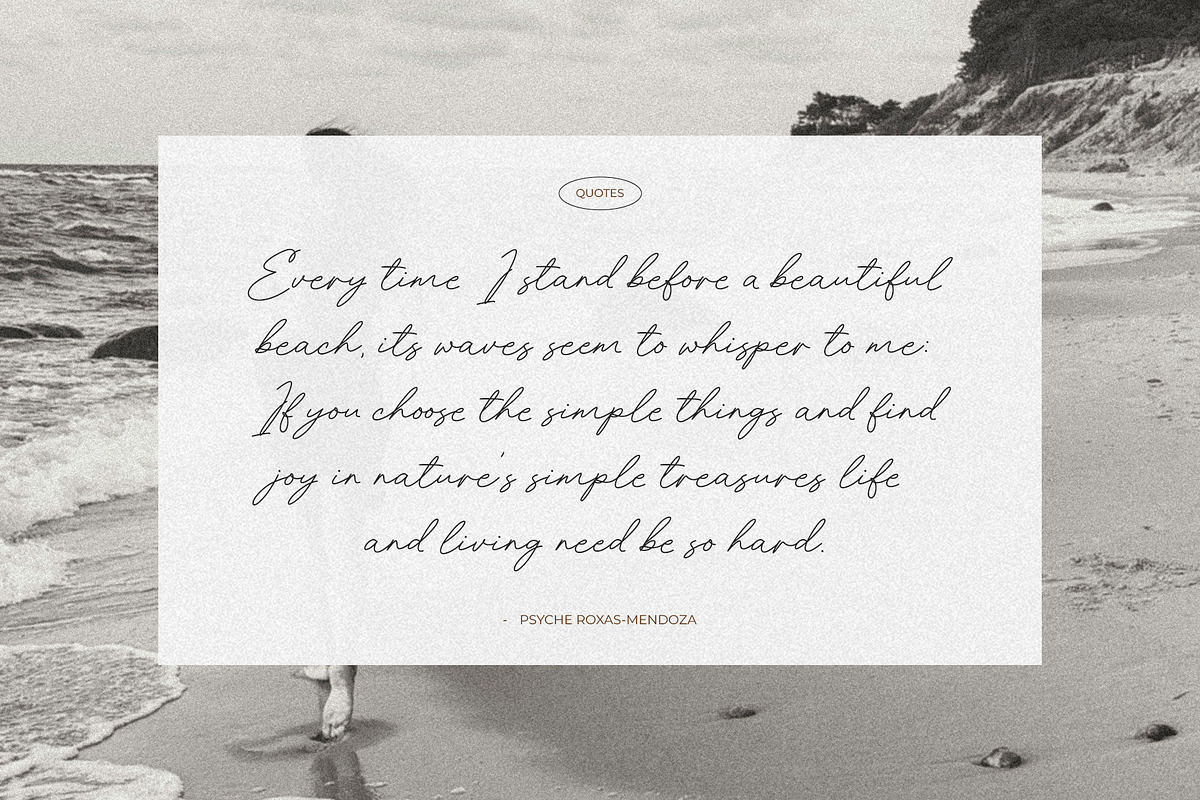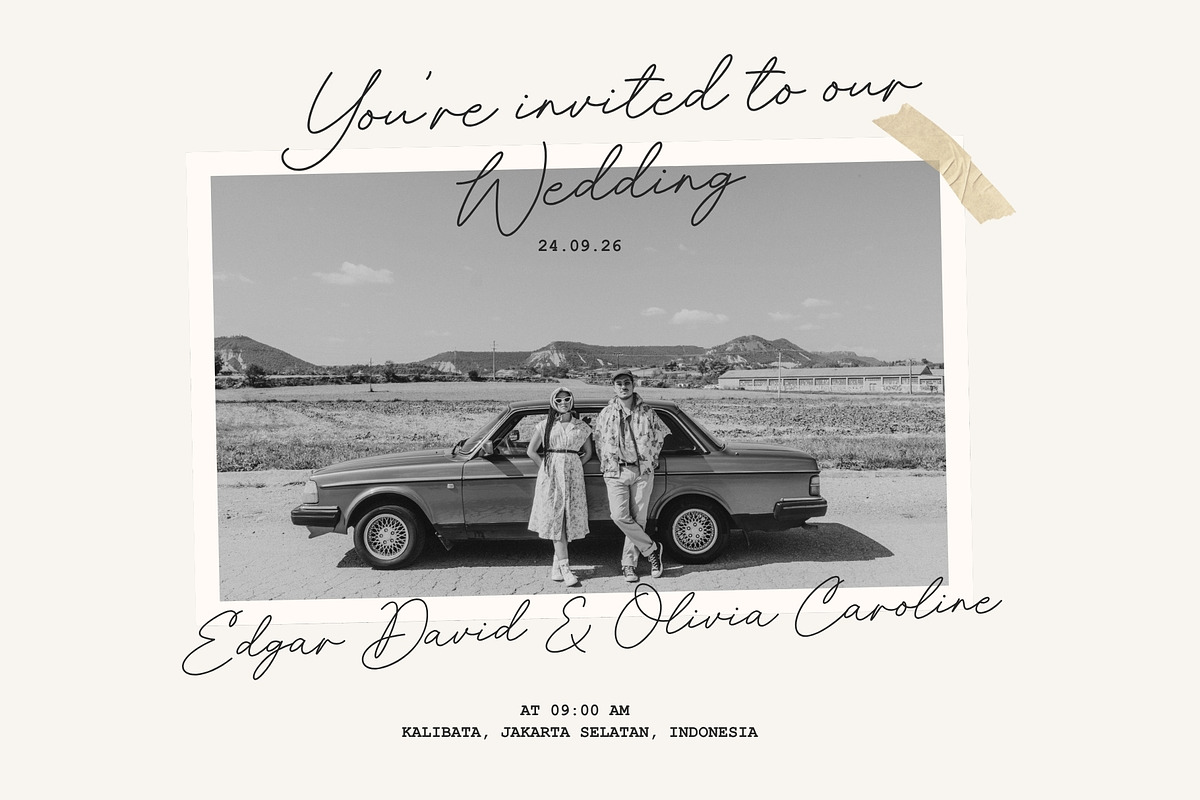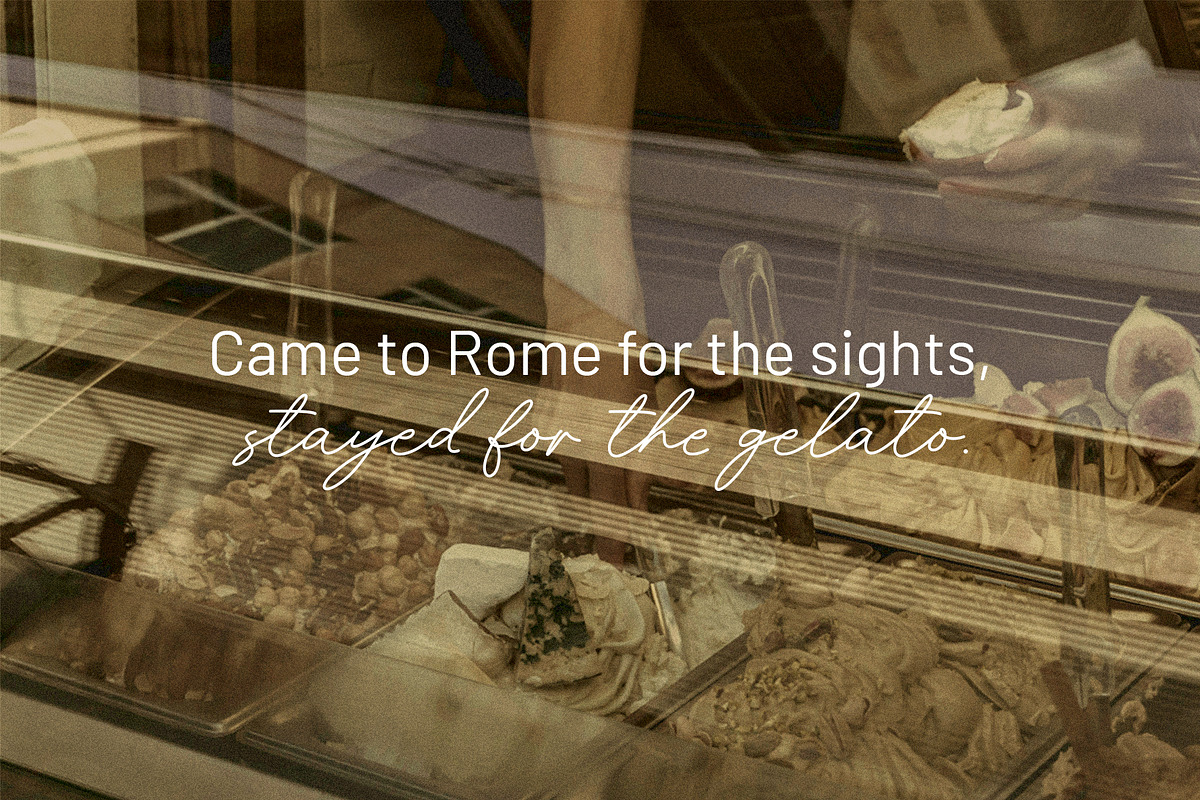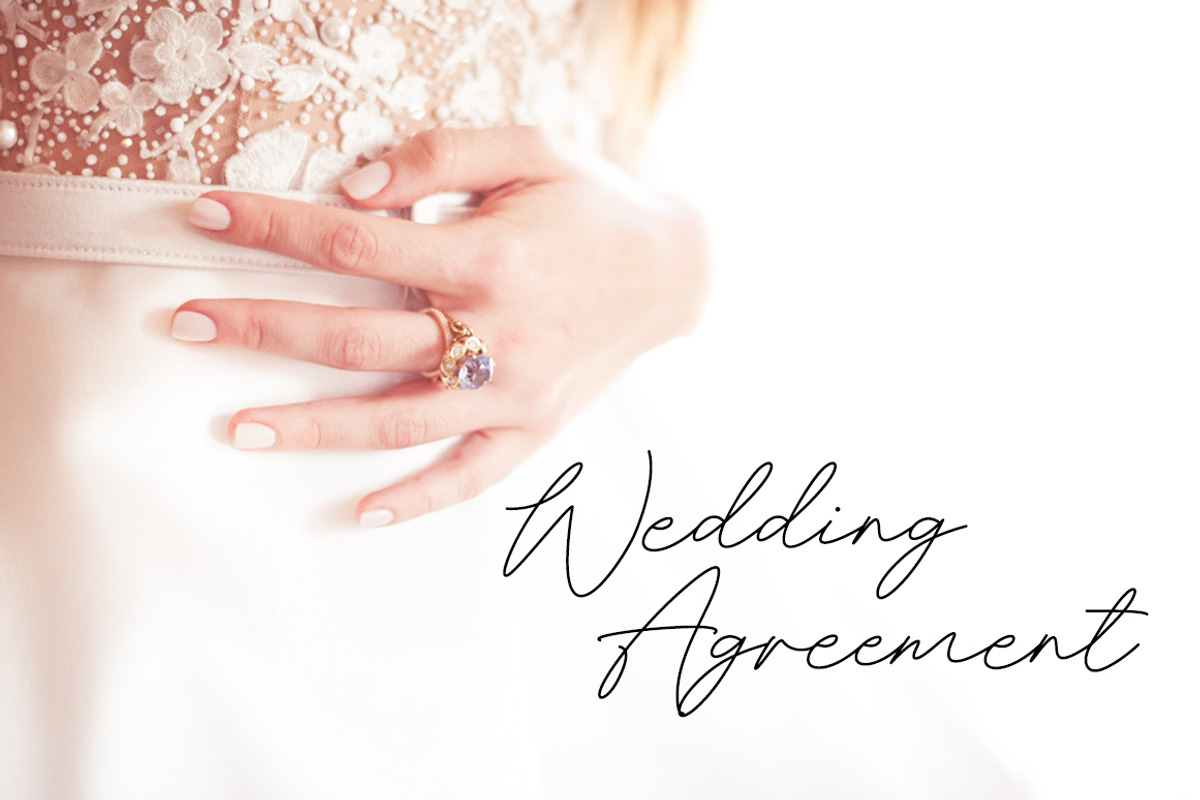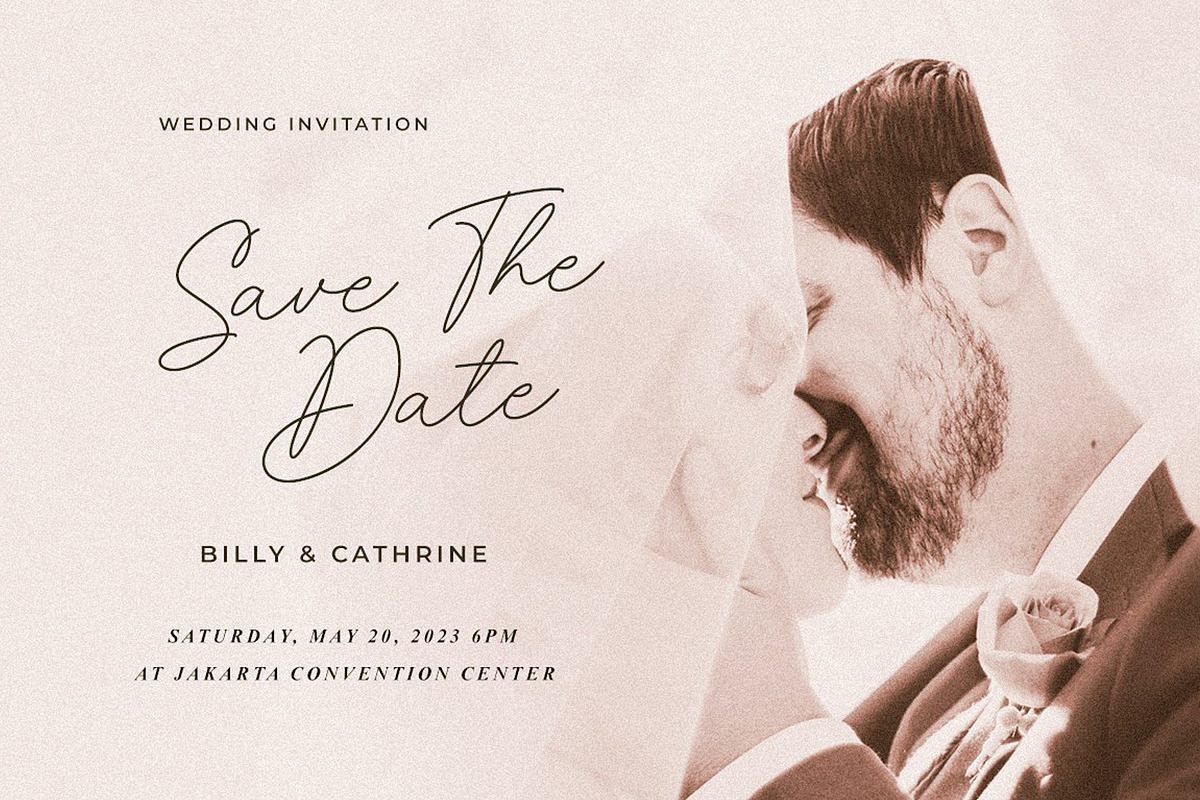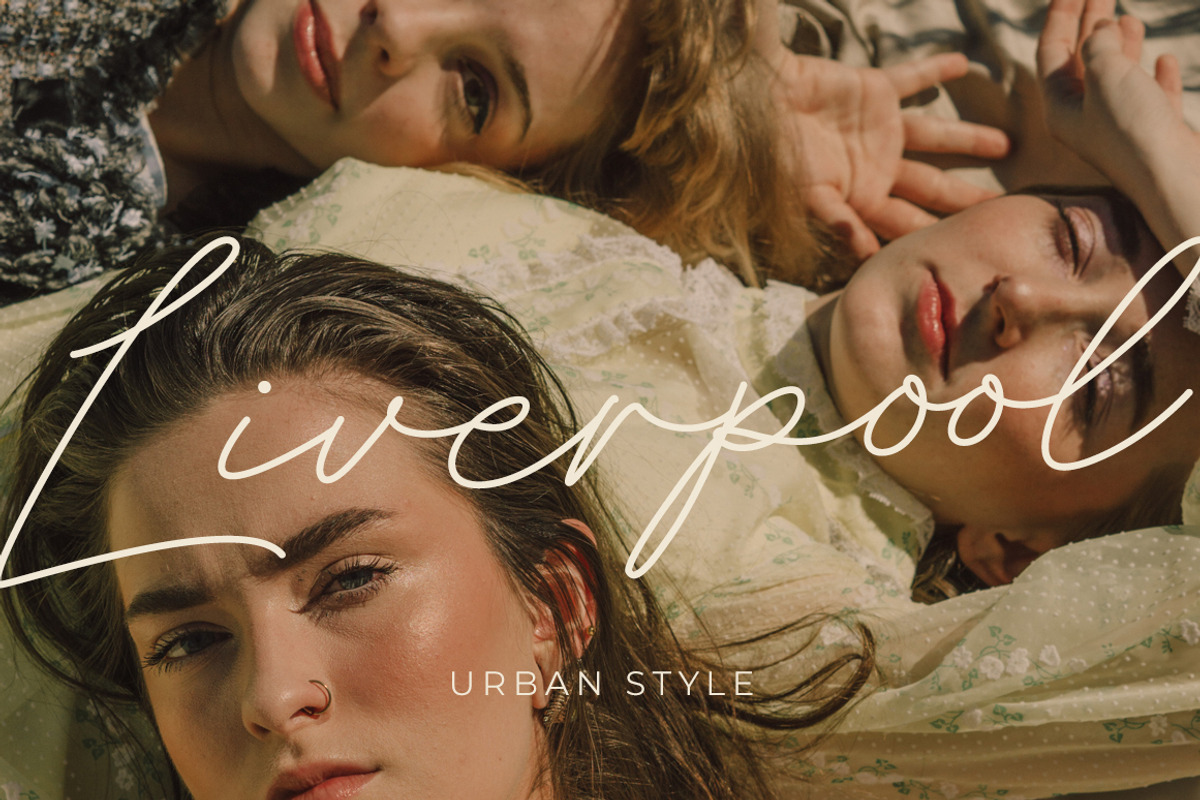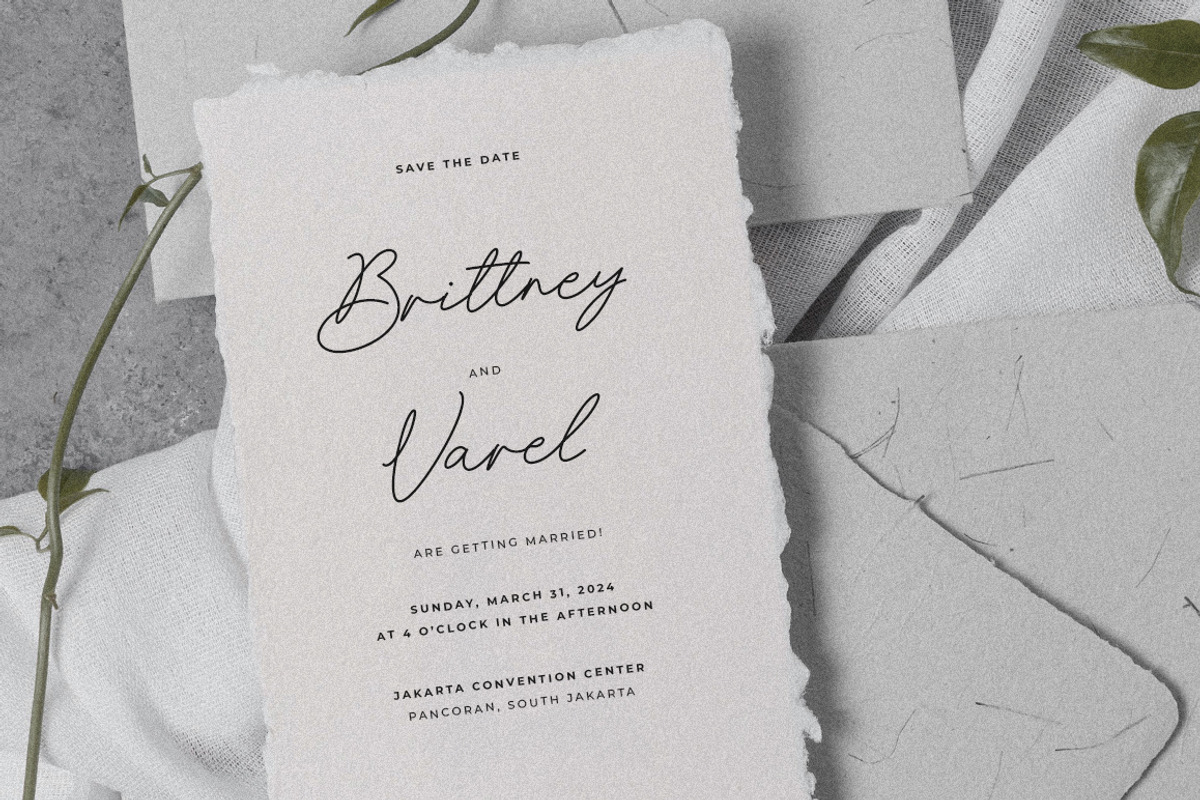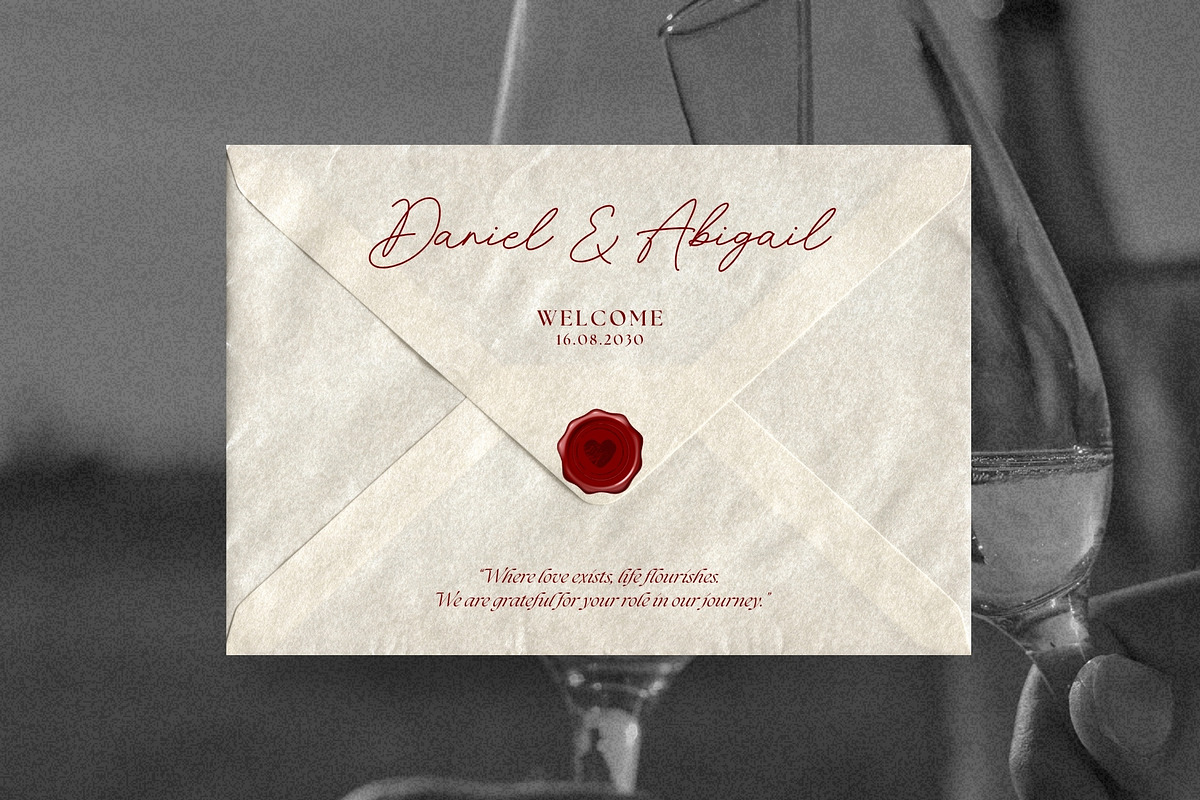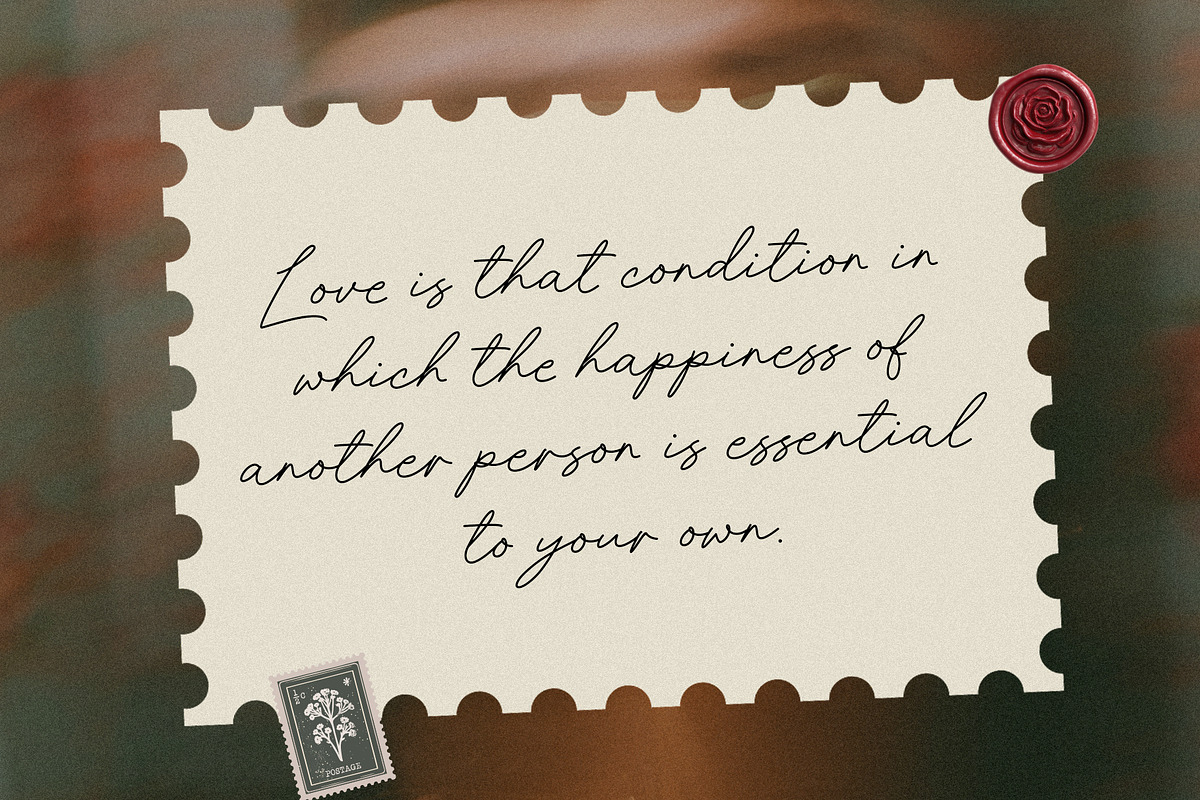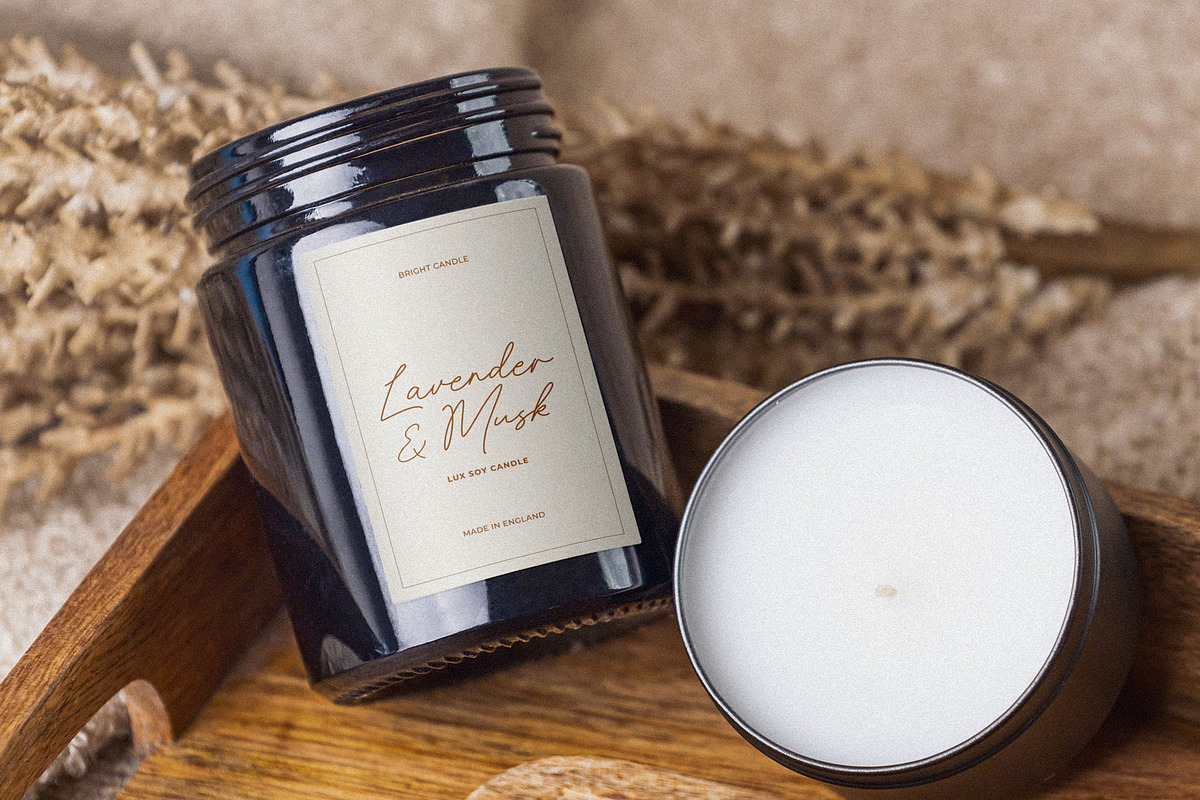
Richford Signature Script Font
Richford is a sophisticated modern signature script font designed to bring an elegant, personal, and luxurious touch to creative projects. Featuring smooth handwritten strokes, expressive letterforms, and a refined signature style, Richford creates a natural flow that feels artistic, stylish, and effortlessly authentic.
Perfect for logos, branding, wedding invitations, stationery, social media graphics, fashion designs, packaging, photography, business cards, product labels, and luxury branding, Richford adds a premium handwritten character to every design.
Its graceful script forms make Richford especially suitable for projects that need a personal, feminine, elegant, and high-end aesthetic. With multilingual support and beautiful ligatures, the font offers greater flexibility for creating unique and polished typography.